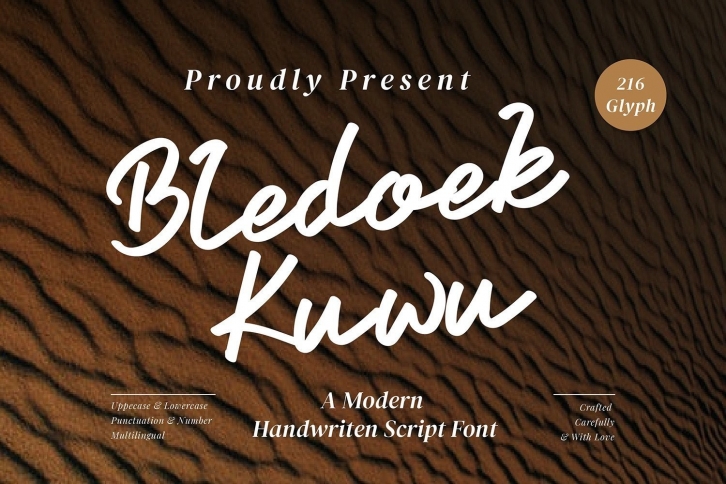
Bledoek Kuwu is a stylish and delicate script font. It has a clean, thin and smooth vibe and it will be a hit for any design that you want to add it to.